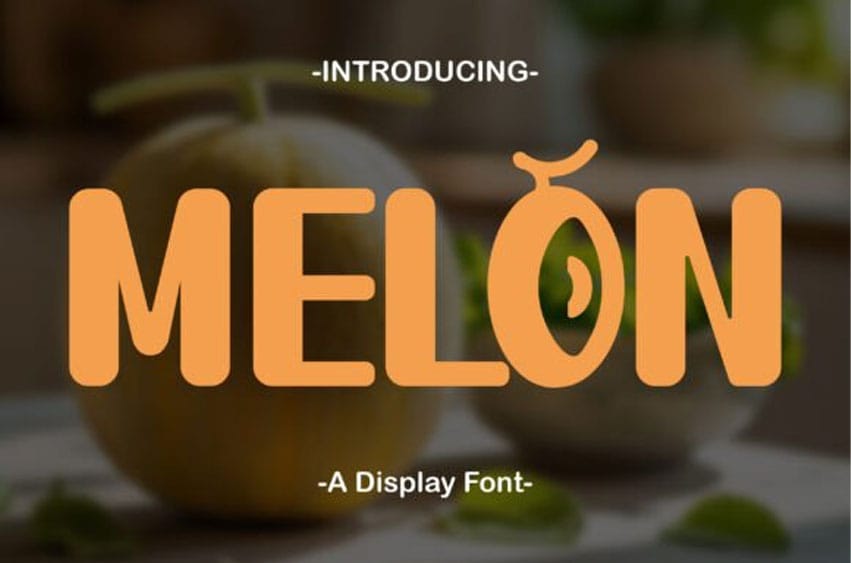
Melon Display Font is a Unique display font, with its enchanting strokes and fanciful details, captures the vivid spirit of joyful times and instills positivity in every project.
Whether you’re conjuring vibrant back-to-school visuals, fashioning charming greeting cards, or injecting a dash of fun into your home decor, Melon Font is your essential partner for brimming your creations with delight and novelty.